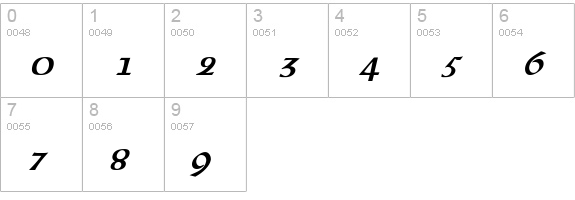
Comstare Italic Font Details
Comstare Italic is a distinctive, italic variant in the Comstare typeface family \xE2\x80\x94 well suited to design and typography projects.
Comstare Italic font is a stylish and elegant typeface that exudes sophistication and modernity. With its slanted design and smooth curves, this font is perfect for adding a touch of class to any project. Whether you are designing a logo, creating a poster, or crafting a wedding invitation, Comstare Italic font will elevate your design to the next level. The best part about Comstare Italic font is that it is available for free download at FontsMarket.com. This means that you can easily access this beautiful font without any cost, making it a versatile and budget-friendly option for all your design needs. Don't miss out on the opportunity to enhance your projects with the timeless elegance of Comstare Italic font – download it for free today at FontsMarket.com!